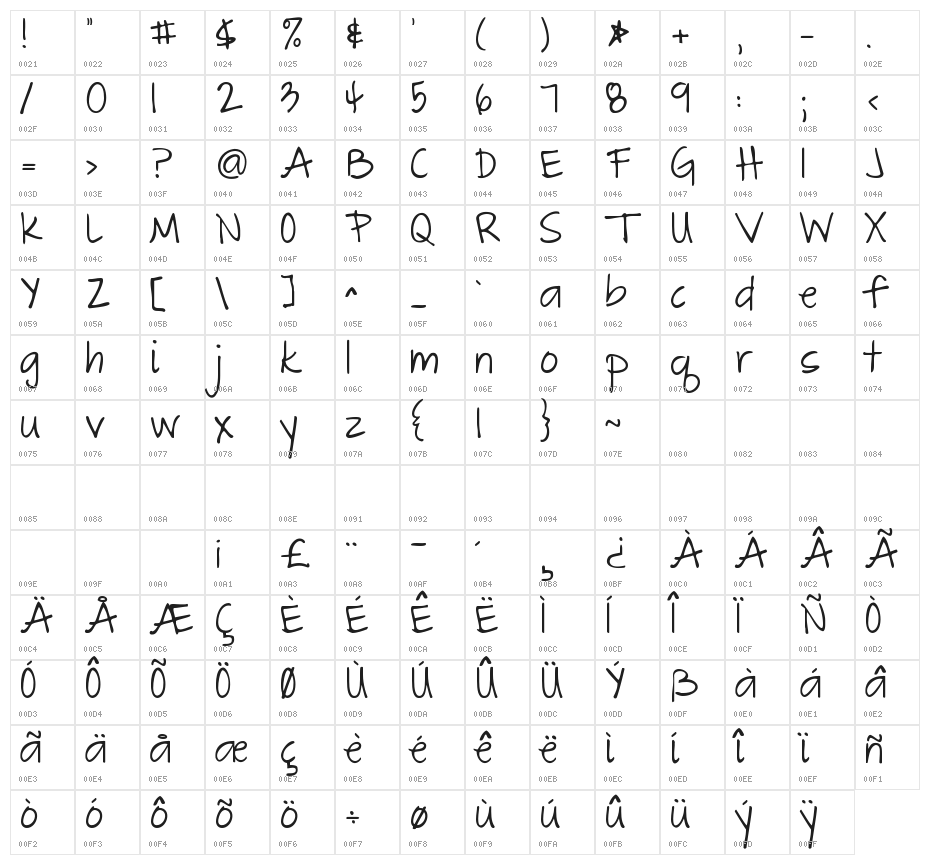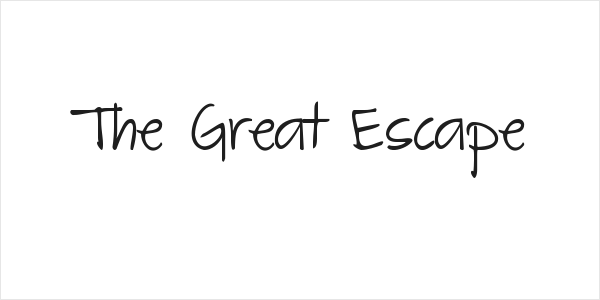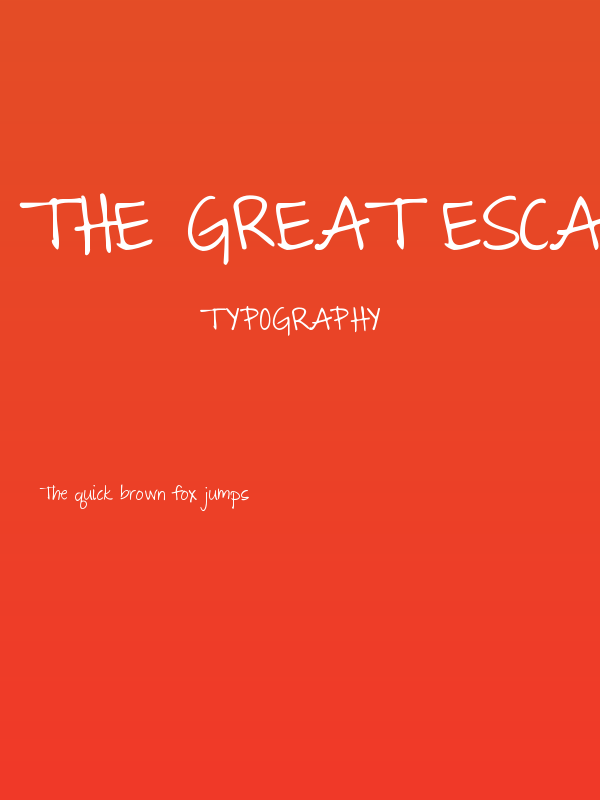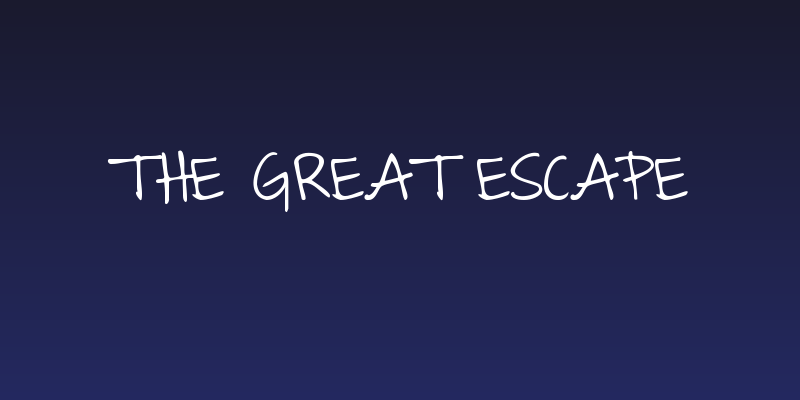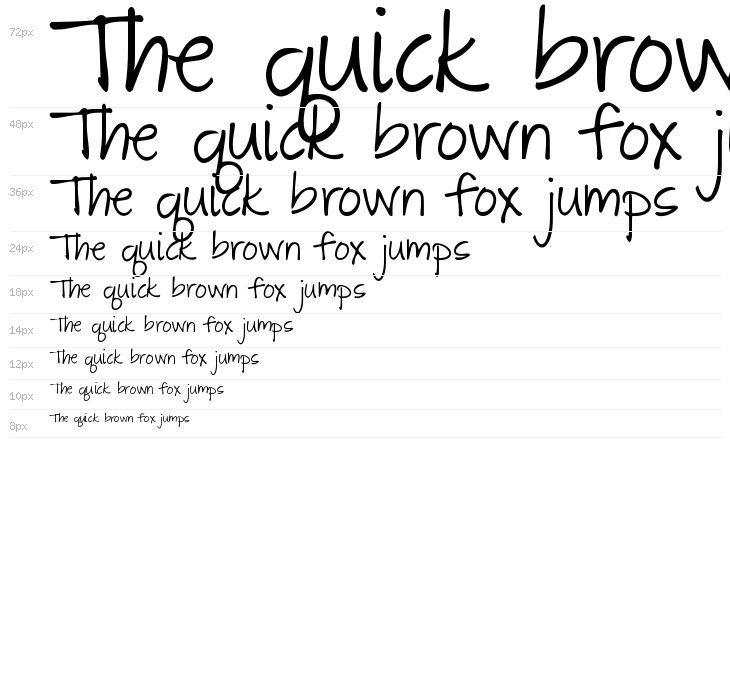
The Great Escape Font
The Great Escape Description
This font exudes a playful and casual handwritten style, characterized by its free-flowing and slightly irregular letterforms. The uppercase and lowercase letters maintain a consistent height, giving it a cohesive look while retaining a sense of spontaneity. The numerals and special characters follow the same informal aesthetic, making them blend seamlessly with the alphabet. The strokes are moderately thick, providing good legibility without sacrificing the font's relaxed vibe. This font is perfect for projects that require a personal touch, such as greeting cards, invitations, or informal branding materials. Its unique style can add a sense of warmth and approachability to any design.
| Use Case | Logos, Headlines, Informal text |
| Proposed Projects | Ideal for greeting cards, invitations, informal branding, and personal projects. |